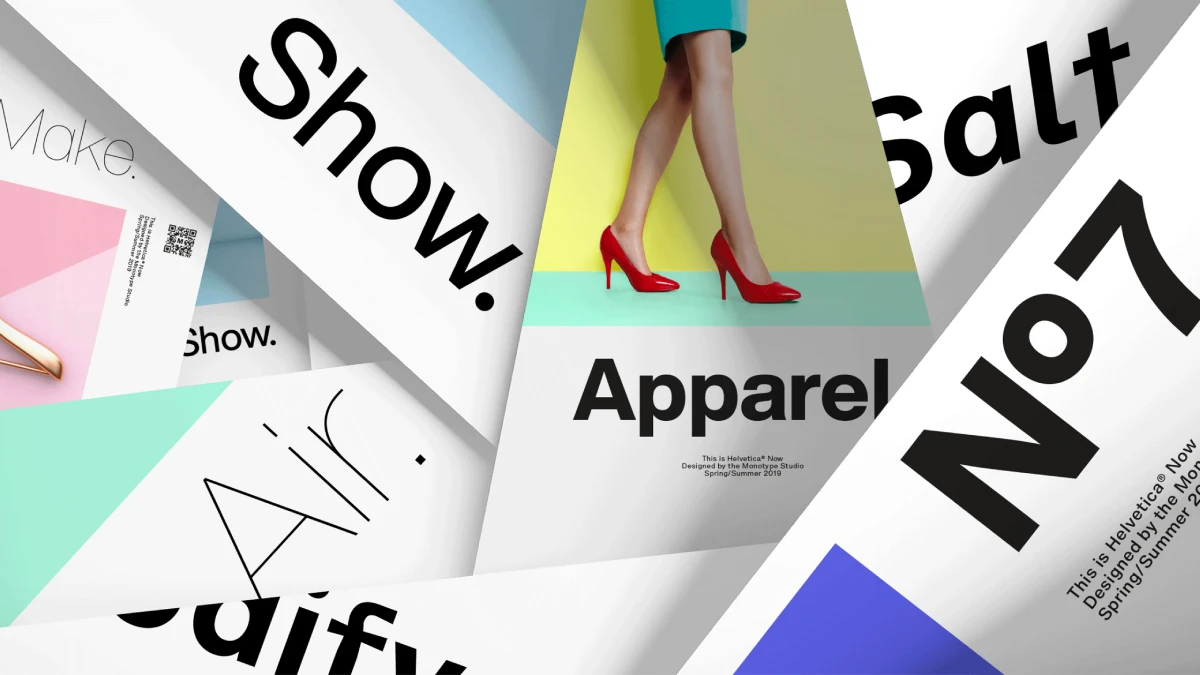
As we stride into 2026, the fonts that define our visual landscape are becoming more dynamic, expressive, and technologically adept than ever before. This is a direct response to a design world grappling with AI co-creation, immersive digital experiences, and a renewed craving for authenticity. For the professional designer, staying ahead of this curve is not optional. The coolest fonts are no longer just typographic tools, but strategic assets that infuse brand identities with personality and power. This curated exploration of the top 100 best fonts for 2026 is your essential guide to navigating this new typographic era, ensuring your work remains not just relevant but revolutionary.
The conversation around type is evolving. We are moving past the rigid minimalism that dominated the last decade, entering a period of expressive modernism. Here, familiar classics are being reimagined with contemporary nuances, and new typefaces are born with digital-first functionalities like variable axes and kinetic potential. This shift demands a more discerning eye from designers. What makes a font one of the “coolest fonts” in 2026? It’s a blend of aesthetic distinction, functional superiority, and cultural resonance.
This comprehensive list delves into the professional typefaces that will shape branding, web design, and editorial projects in the coming year. We will explore what makes them significant, why they are gaining traction, and how you can leverage them to create work that captivates and communicates with clarity.
The New Workhorses: Sans Serifs with Soul
The reign of the sterile, anonymous sans serif is over. While clarity and minimalism remain paramount, the best sans serif fonts of 2026 are injected with warmth, character, and distinctive details. They are versatile workhorses that don’t sacrifice personality for utility.
Neo-Grotesque Revival
These fonts honor the Swiss tradition of objectivity but feature subtle, humanistic touches that make them feel approachable and utterly contemporary. They are the backbone of modern corporate identity and UI design.
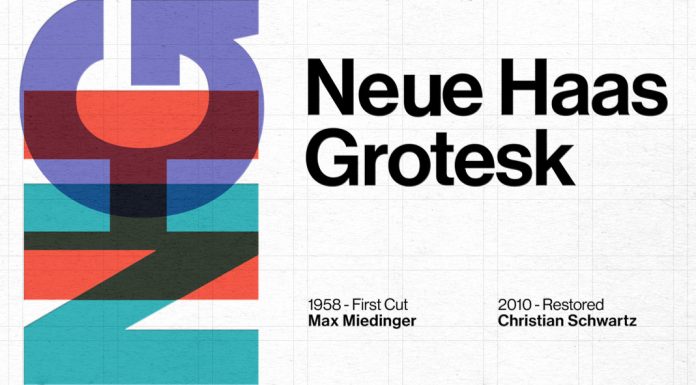
- Söhne (Klim Type Foundry): Kris Sowersby’s masterful take on Akzidenz-Grotesk, filtered through a modern lens. It’s the confident, stylish voice for brands that want to convey trust without being stuffy.
- GT America (Grilli Type): A brilliant bridge between 19th-century American Gothics and European Neo-Grotesks. Its vast family of 84 styles makes it one of the most versatile tools for complex design systems.
- Suisse Int’l (Swiss Typefaces): The quintessential digital Swiss Grotesk, embodying the modernist principles of the International Typographic Style for today’s screens.
- Aeonik (CoType Foundry): A neo-grotesque with geometric foundations, Aeonik achieves mechanical precision while feeling warm and approachable. It has become a favorite for global tech brands.
- Helvetica Now (Monotype): A significant update to a classic. Every character has been redrawn and re-spaced, making it perform beautifully in digital environments.
- Inter (Rasmus Andersson): An open-source powerhouse designed specifically for user interfaces. Its tall x-height and exceptional legibility at all sizes make it a go-to for screen-based design.
- Neue Haas Grotesk (Linotype): Not to be confused with Helvetica, this is the original design from which Helvetica was derived. Its restoration offers a warmer, more nuanced alternative.
- Resist Sans (Groteskly Yours): A free-spirited neo-grotesque that balances a minimalist look with distinctive, tentative letterforms for a touch of revolt.
- SK-Modernist (Sean Kane): A clean, minimalist font inspired by the Avant-Garde movement, perfect for digital media where simplicity is key.
- Geist (Vercel): A minimalist sans-serif beloved by the coding and design community for its superb clarity in digital projects and UI design.
Geometric & Humanist Hybrids
These typefaces blend the clean, circular forms of geometric sans with the warmth and readability of humanist designs, resulting in fonts that are both friendly and professional.
- Graphik (Commercial Type): Christian Schwartz’s “emphatically vanilla” workhorse is a designer favorite for its pure, geometric simplicity and wide range of weights.
- GT Walsheim (Grilli Type): Inspired by 1930s Swiss poster lettering, this geometric sans is friendly and warm, making it ideal for branding that aims to be approachable.
- Aperçu (Colophon Foundry): A synthesis of classic realist typefaces like Johnston and Gill Sans, Aperçu feels both familiar and distinctly contemporary.
- Pangram Sans Rounded (Pangram Foundry): The playful, approachable sibling of the powerful Pangram Sans, this font shines in bolder weights and brings a fun energy to designs.
- Plus Jakarta Sans (Tokotype): A versatile, contemporary sans with a wide range of weights, suitable for everything from apps to packaging.
- DM Sans (Colophon Foundry for Google): A low-contrast geometric sans optimized for screen readability, making it a top choice for web and mobile UI.
- Space Grotesk (Florian Karsten): A geometric sans with a futuristic, monospace-inspired vibe, perfect for tech branding and edgy editorial work.
Q: Are these fonts suitable for web and mobile design?
A: Yes, many of the fonts include optimized webfont formats or variable versions that display cleanly on mobile and desktop screens. Testing the font in your UI layout is recommended to ensure readability and visual consistency across devices.